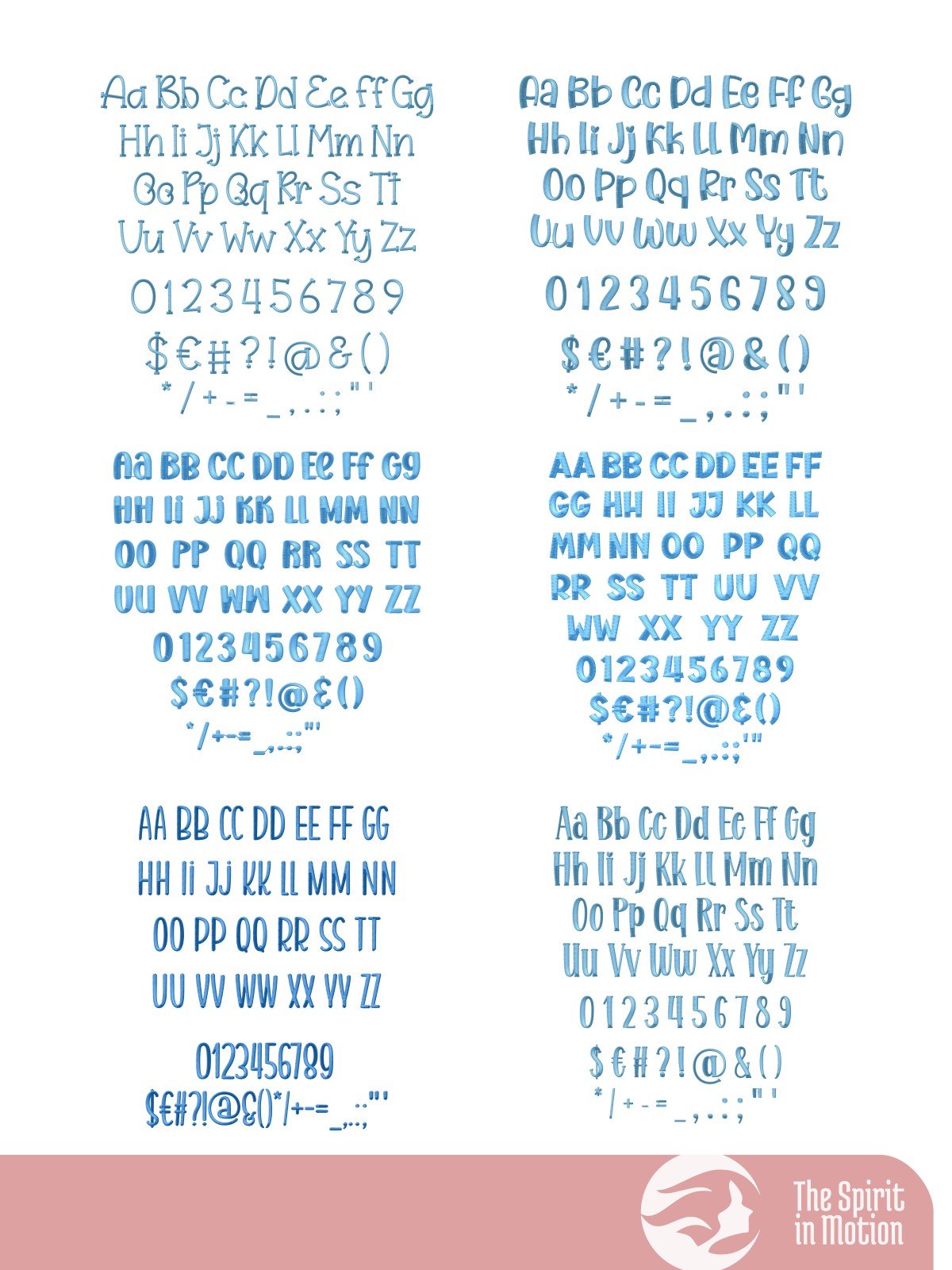
Whimsical Embroidery Font Bundle #1: 10 Playful Hand-digitized Keyboard Fonts | PES, BX, DST
Introducing the Playful Embroidery Font Bundle #1. Perfect for personalizing children's apparel, blankets, clothing, accessories, or home décor, our fonts will add elegance and charm to your embroidered names, quotes, and decorative details. The listed sizes refer to the approximate height of uppercase letters, though adjustments may be needed depending on your specific project and machine settings.